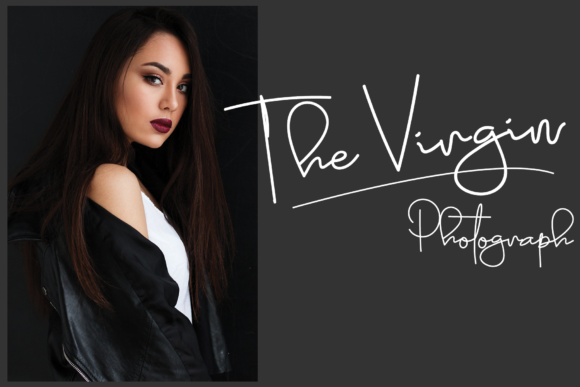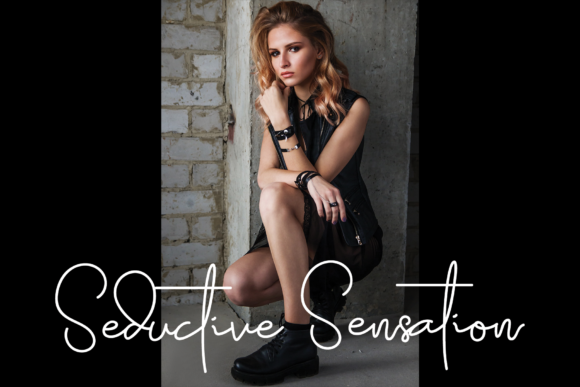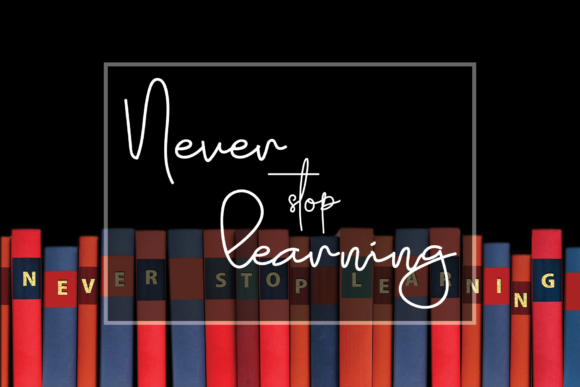
About Graduation Day Font
Graduation Day is a truly dazzling script font that will instantly captivate and elevate your designs. With its meticulously crafted and highly detailed letterforms, this font stands out as a stunning addition to your font library. It possesses a sense of sophistication and elegance that will enhance any creation, regardless of the topic or purpose.
The beauty of Graduation Day lies in its intricate details. Each stroke and curve of the letters is carefully designed to create a harmonious and visually appealing composition. The result is a font that exudes professionalism, making it ideal for a wide range of design projects.
Whether you’re creating graduation announcements, certificates, invitations, or any other design related to education or achievement, Graduation Day will be a perfect choice. Its stylish and refined appearance conveys a sense of accomplishment and celebration, perfectly capturing the essence of the special occasion.
Moreover, Graduation Day’s versatility allows it to be used beyond graduation-themed designs. It can effortlessly complement various other design styles and themes, adding a touch of elegance and sophistication. From branding materials to social media graphics, this font has the potential to enhance any project and leave a lasting impression on viewers.
The timeless and classic appeal of Graduation Day makes it a font that will remain relevant and impactful for years to come. Its carefully crafted details and thoughtful design ensure that it stands out among the crowd. No matter the purpose or context, this font is guaranteed to enhance your creative endeavors and bring your vision to life.
Embrace the dazzling beauty of Graduation Day and unlock its potential to enhance your designs. Add it to your font library today and let it be the go-to choice for adding a touch of elegance and sophistication to your creations. Graduation Day is the perfect companion for expressing the excitement and pride associated with milestones and accomplishments.